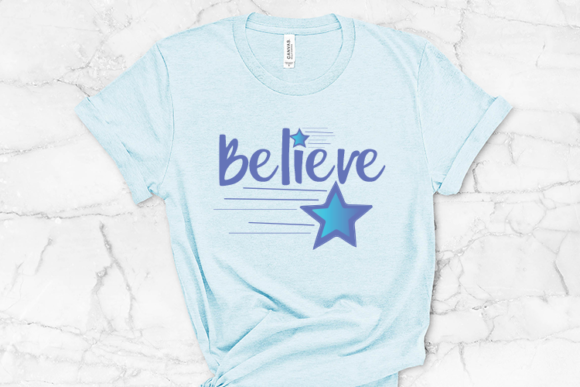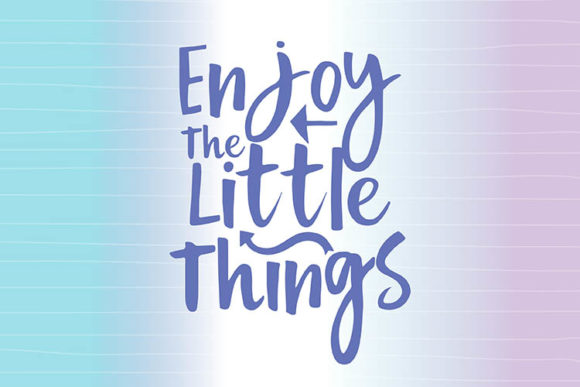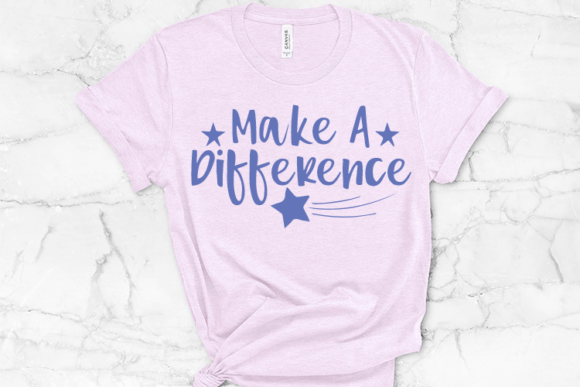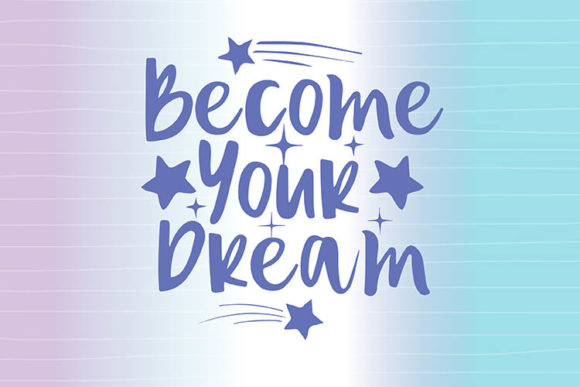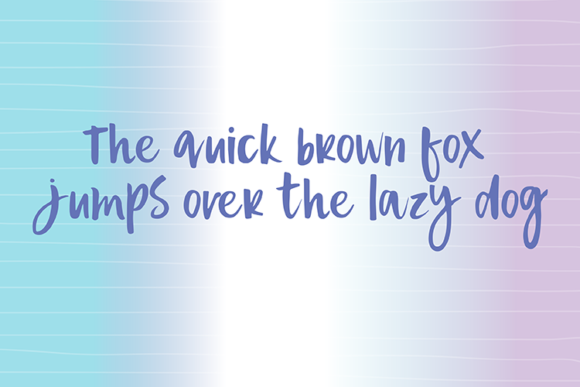
Painted Star Font
Painted Star is a cute and casual handwritten font with an incredibly friendly feel. Use this gorgeous and unique font to bring any DIY project to life!